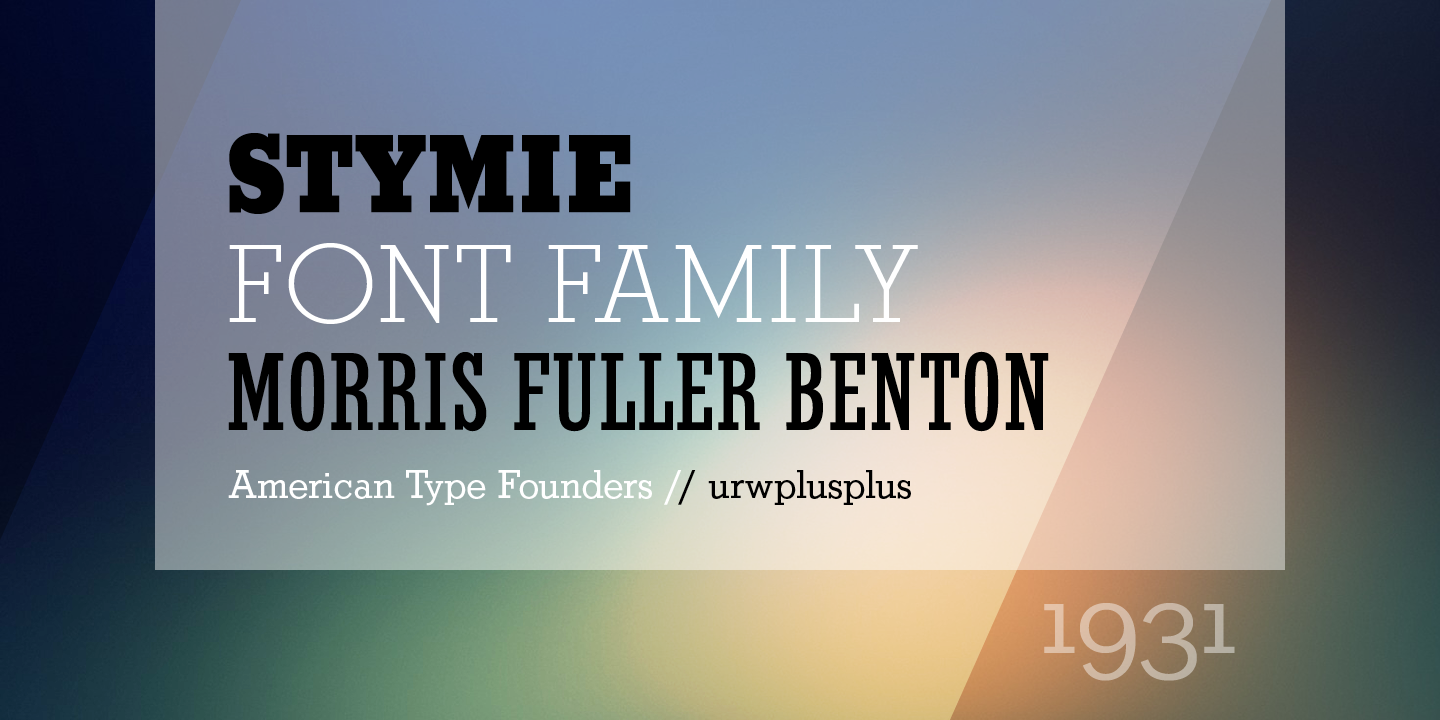
Stymie Font is excellent for impactful design applications including bold headlines, poster designs, advertising campaigns, display typography, retro branding, vintage signage, magazine mastheads, and eye-catching promotional materials. This distinctive slab serif typeface delivers strong visual presence and commanding authority in display applications.
What makes Stymie Font exciting is its powerful geometric construction with heavy slab serifs that create unmistakable visual impact. The font features robust letterforms with consistent stroke weights and pronounced serifs that demand attention while maintaining excellent readability. Its confident character embodies strength and reliability, making it perfect for brands that want to project authority and trustworthiness.
The Stymie Font family includes comprehensive weight options such as Light, Regular, Medium, Bold, and Black variations. Each weight maintains the font's characteristic slab serif personality while offering different levels of visual intensity for diverse design applications and hierarchical systems.
This powerful slab serif typeface represents classic American typography with enduring appeal. Advertising professionals and brand designers choose Stymie Font Free Download for its proven ability to capture attention and communicate strength. The font's bold presence makes it ideal for headlines, logos, and marketing materials that need immediate visual impact. Its timeless design ensures contemporary relevance while honoring the rich tradition of American display typography that defines memorable brand communications.